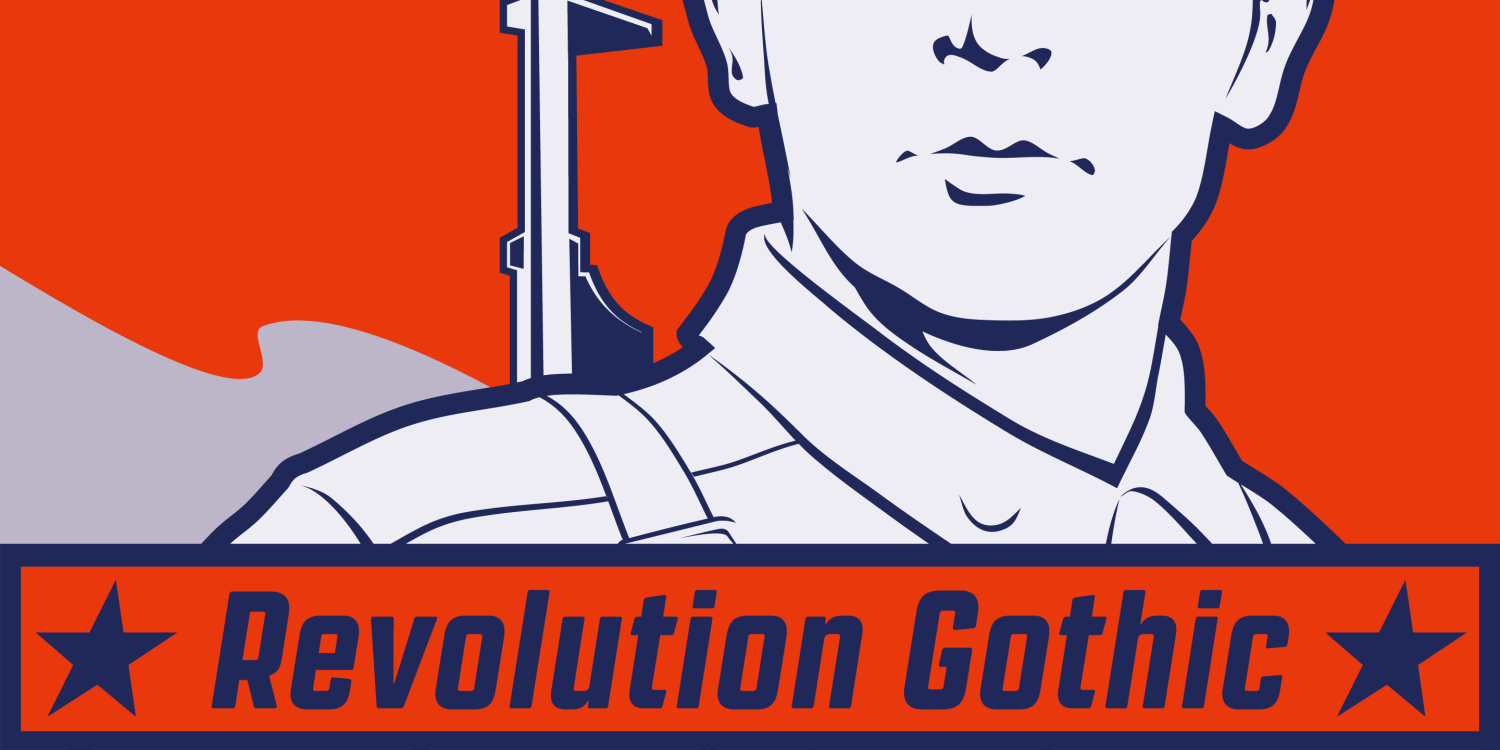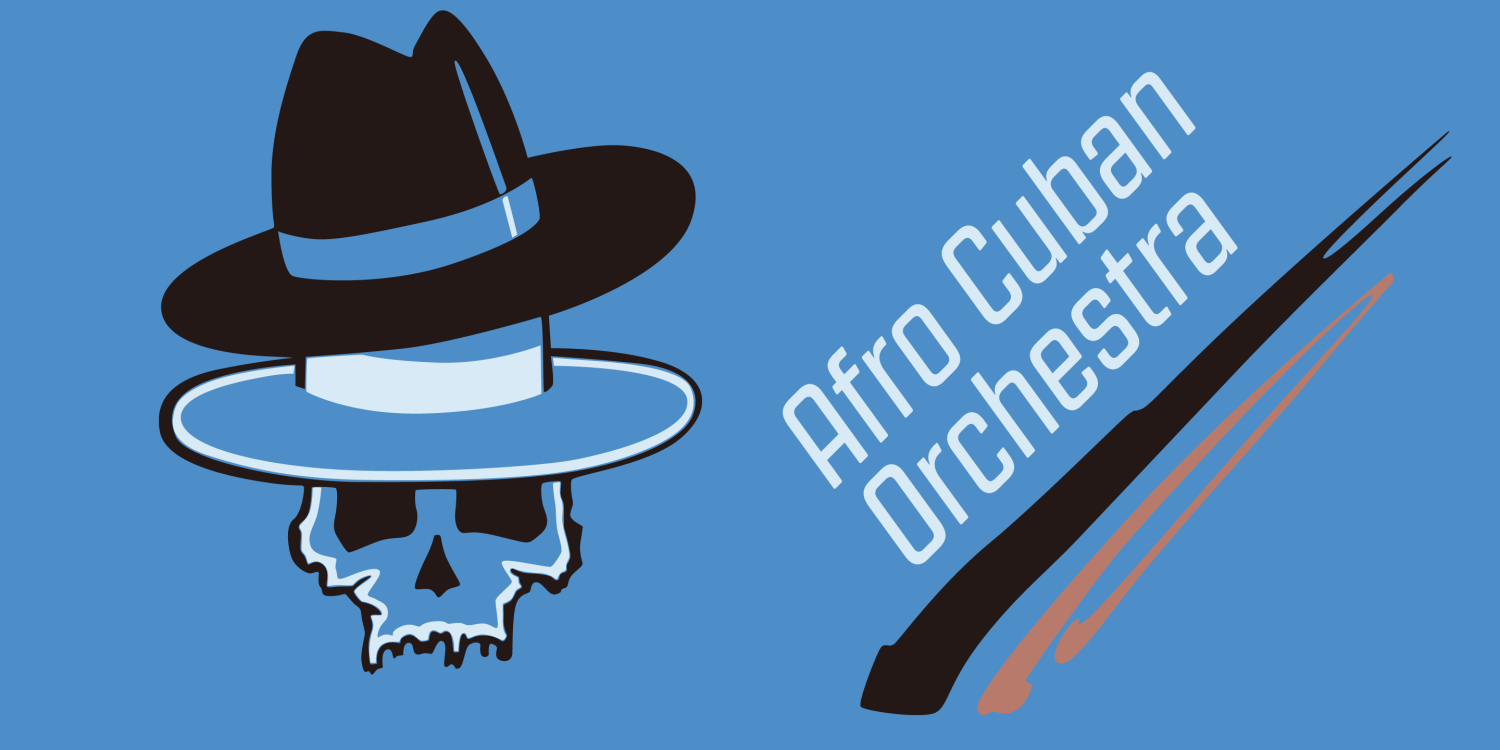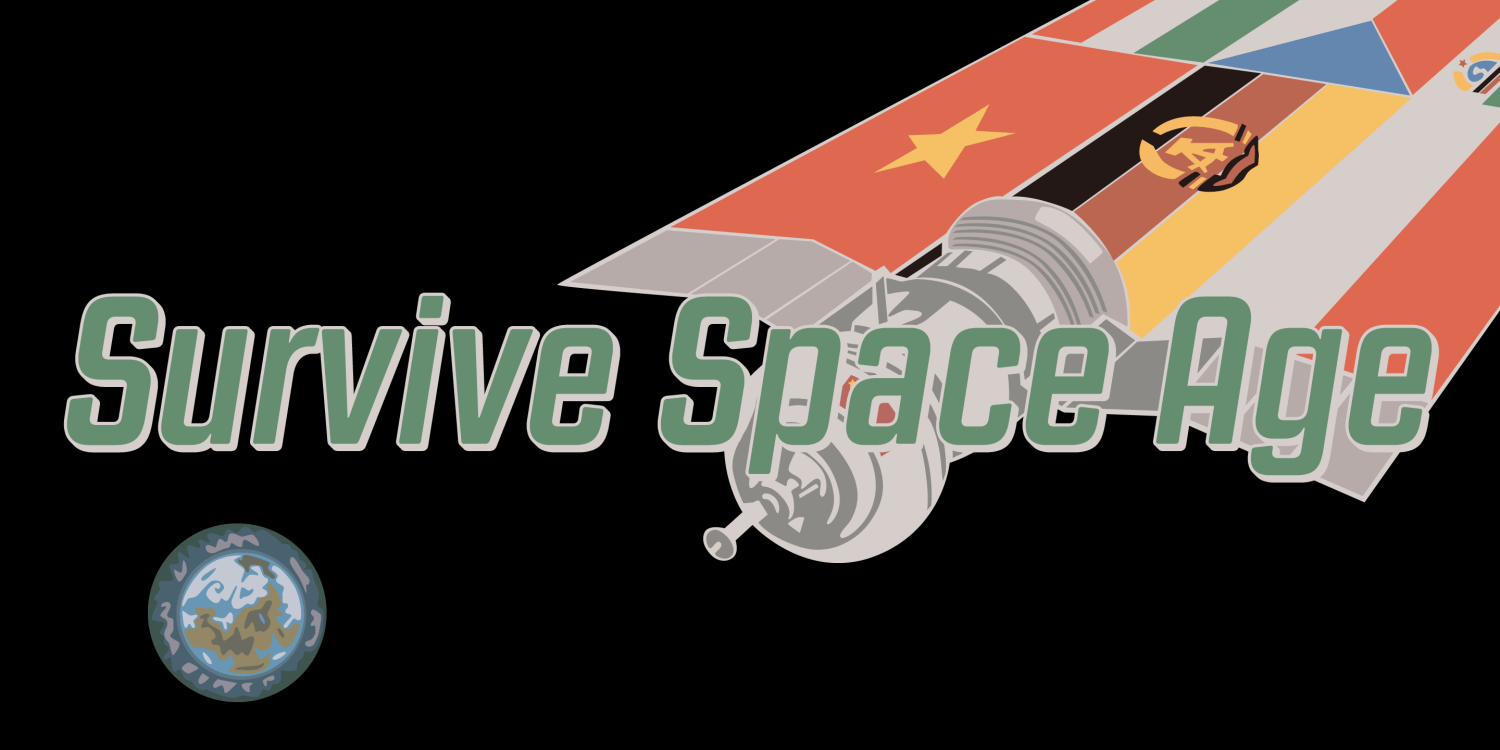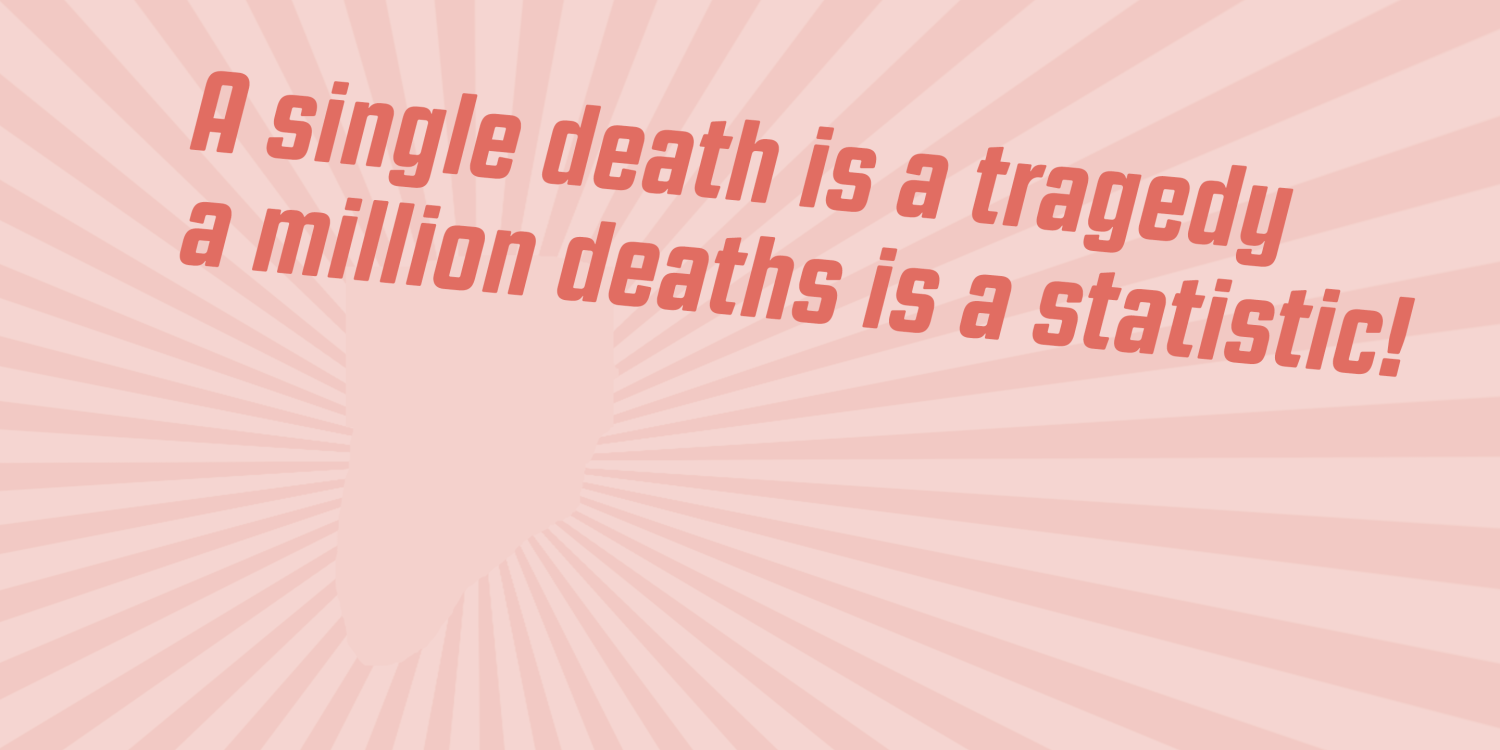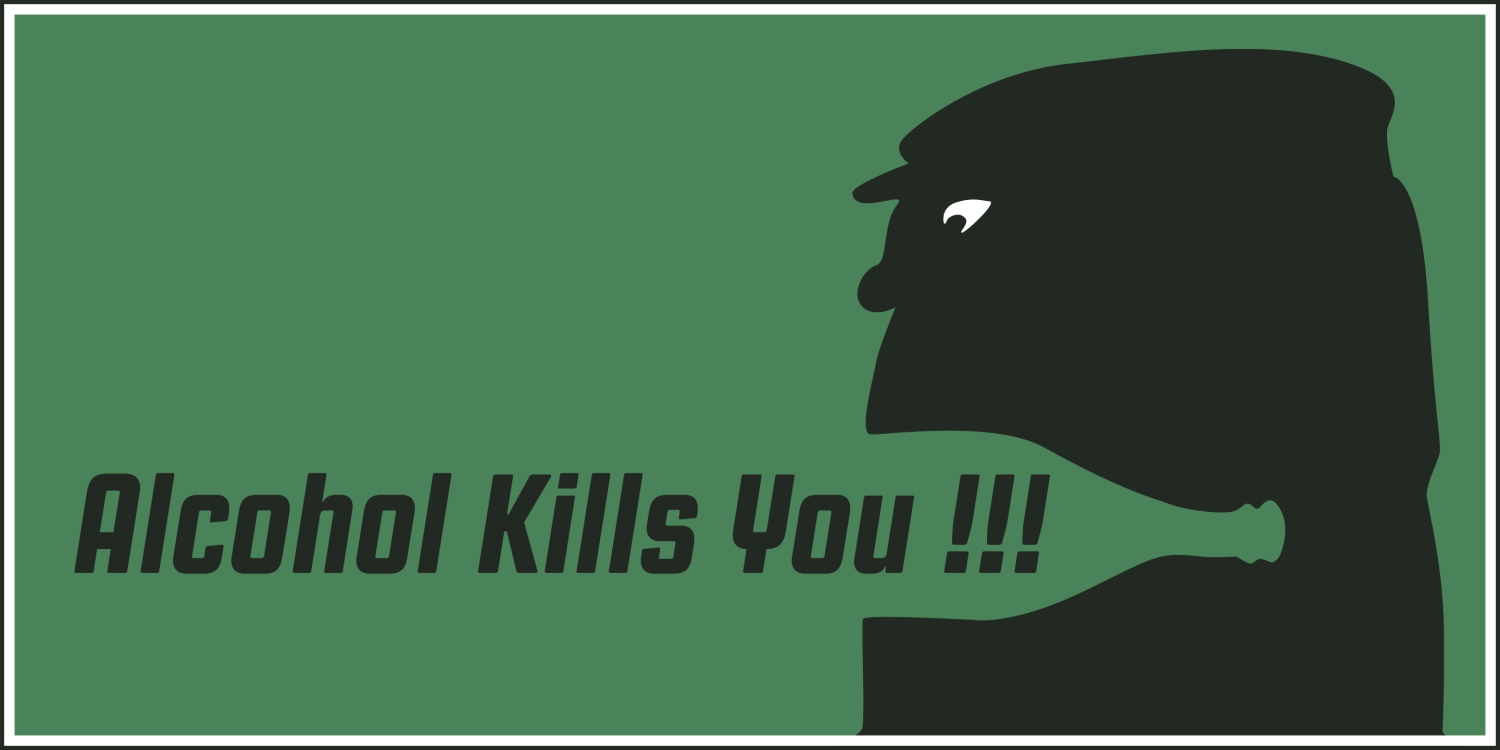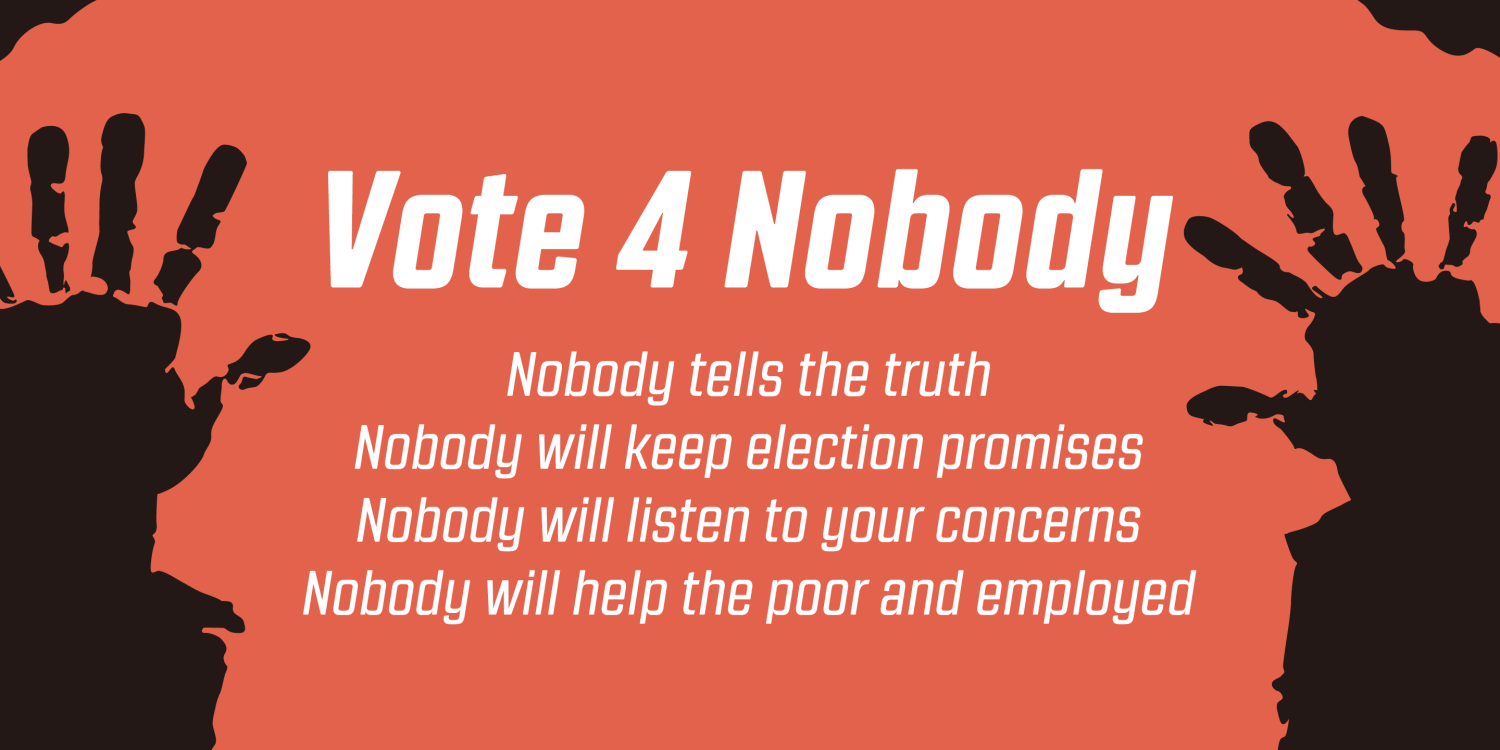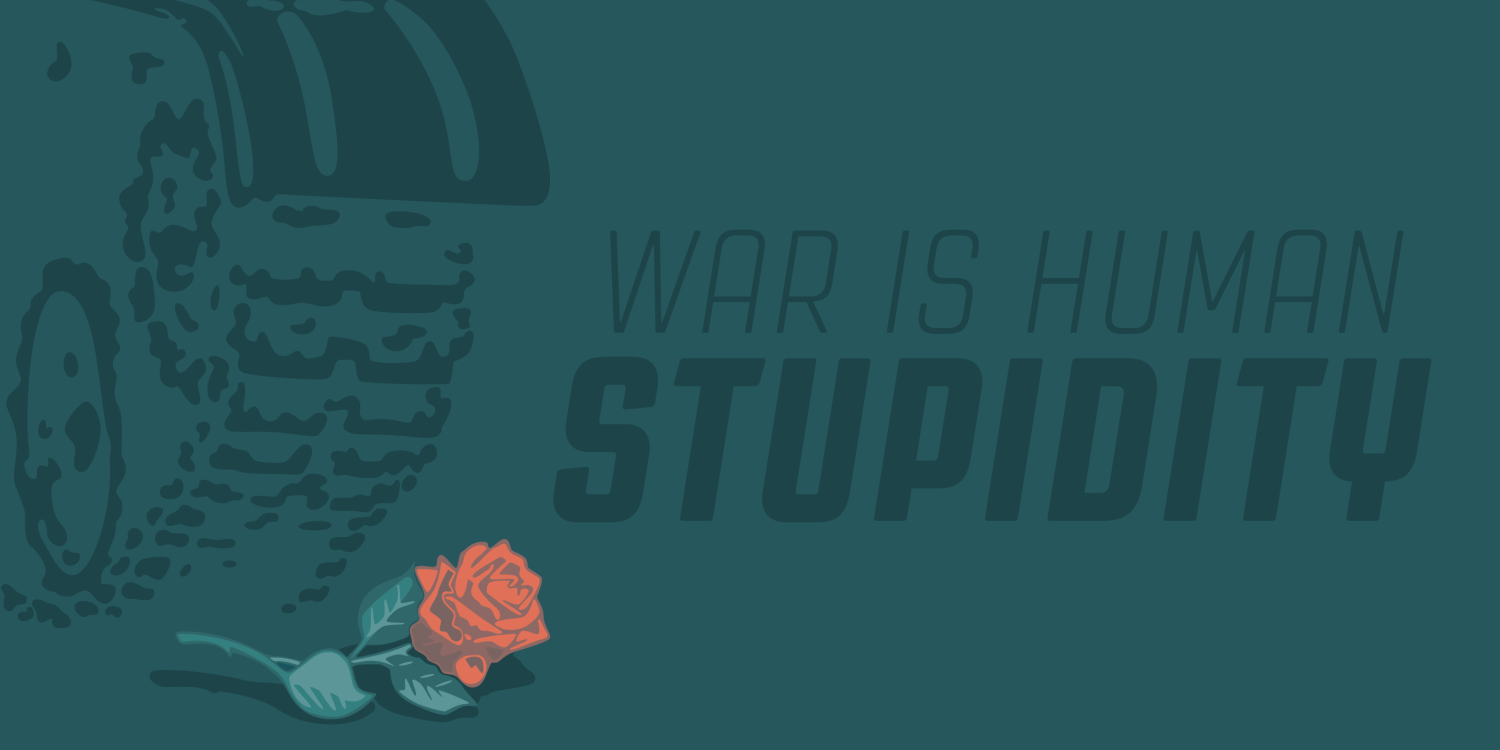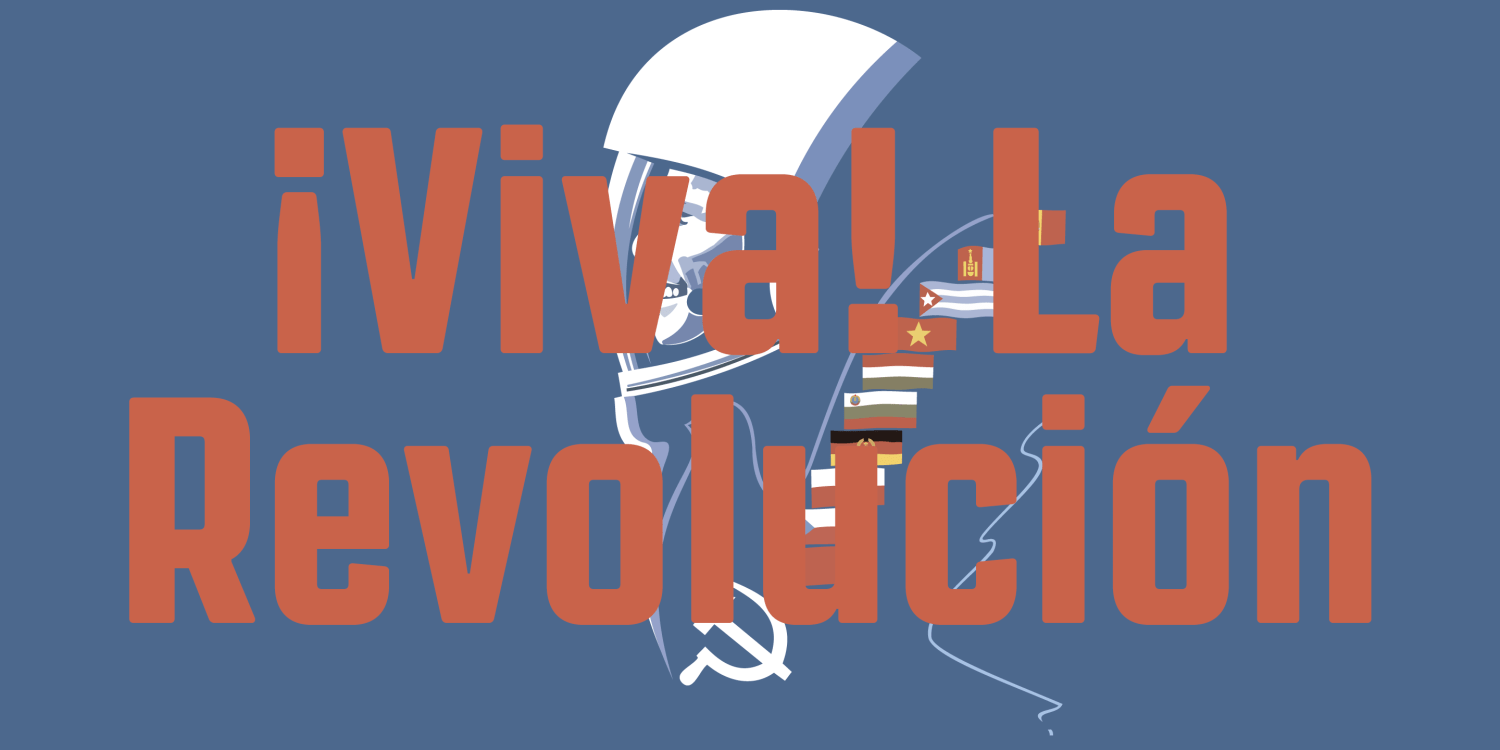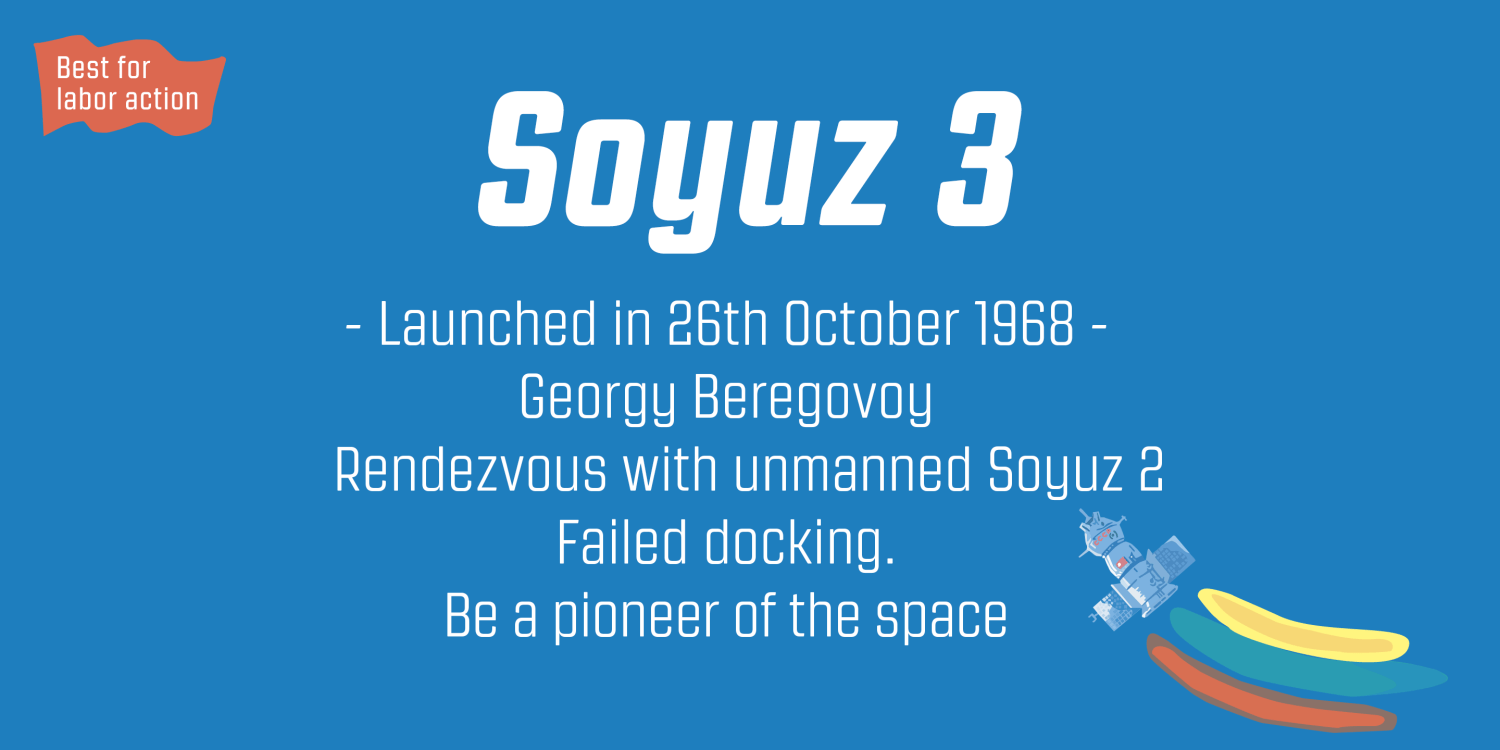
Revolution Gothic
Font Family by Dharma Type
Revolution Gothic is an expanded and refined version of PAG Revolucion, originally released by the Prop-A-Ganda type foundry in 2008.
The original font—inspired by some propaganda posters and wall paintings from the 1960s to 1980s—became the most popular release from Prop-A-Ganda.
In this updated version, the details and spacing have been carefully improved, and the family has been expanded to include new weights, matching slanted styles, and lowercase characters—making it fully equipped for modern design needs.
Now consisting of 10 styles, Revolution Gothic is the perfect choice for retrospective and vintage-themed projects, combining bold impact with contemporary functionality.